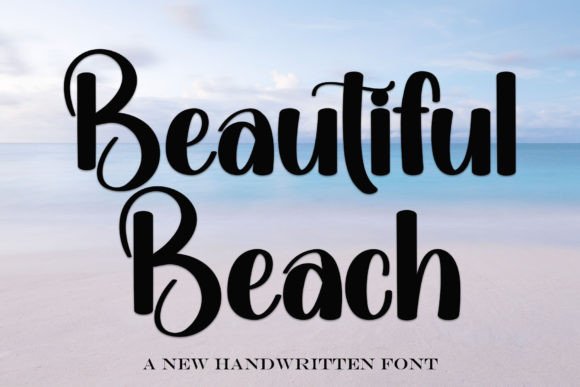
Beautiful Beach for Modern Editorial Design
Beautiful Beach in a Lifestyle Blog Redesign
Beautiful Beach is a stylish handwritten font with a contemporary atmosphere and impeccable form, inspired by a timeless classic calligraphy. When I sat down to redesign the header of my lifestyle blog, I knew I needed something that felt personal yet professional. Beautiful Beach fit perfectly—its balanced and varied strokes brought warmth and elegance to the layout, transforming a simple title into a visual invitation.
I used Beautiful Beach for the main blog title, pairing it with a clean sans serif font for the subtitle. The contrast created a sense of rhythm that guided the reader’s eye smoothly from the headline to the supporting text. It wasn’t just about aesthetics; the font’s readability on both screen and print made it ideal for a publication that values both digital and physical formats.
Beautiful Beach for an Ebook Cover and Chapter Headings
Beautiful Beach is a display font that works beautifully when given space to breathe. For a recent recipe ebook I was designing, I chose this font for the cover title and each chapter heading. Its handwritten feel gave the project a cozy, approachable tone that matched the content inside—each page felt like a hand-written note from a friend.
The font’s varied stroke widths added visual interest without overwhelming the reader. I experimented with spacing and line height to ensure that even longer titles remained legible. This attention to detail helped maintain a consistent mood throughout the book, reinforcing the brand identity and making the content more engaging.
Beautiful Beach in a Wedding Guide Layout
Beautiful Beach is a stylish handwritten font with a contemporary atmosphere and impeccable form, inspired by a timeless classic calligraphy. When working on a wedding guide, I wanted a font that could evoke romance and sophistication. Beautiful Beach delivered exactly that. Its elegant curves and balanced structure were perfect for section headings, pull quotes, and decorative accents.
I paired it with a subtle serif font for body copy, ensuring that the design didn’t become too busy. The result was a layout that felt both modern and timeless, aligning with the theme of the publication. Readers commented on how the typography made the guide feel more personal and heartfelt—an effect I hadn’t anticipated but was delighted to achieve.
Beautiful Beach for Newsletter Headers and Pull Quotes
Beautiful Beach is a display font that shines in editorial layouts where visual hierarchy matters. In a recent newsletter redesign, I used it for the header and pull quotes. Its unique character added a touch of personality without distracting from the message. The font’s variation in stroke weight allowed for dynamic emphasis, making key points stand out naturally.
I found that using Beautiful Beach sparingly was key. Too much of it could create visual clutter, especially in dense content areas. But when used strategically—for headers, quotes, or callouts—it elevated the overall design and made the newsletter feel more intentional and polished.
Beautiful Beach in a Coaching Workbook and Printable Planner
Beautiful Beach is a stylish handwritten font with a contemporary atmosphere and impeccable form, inspired by a timeless classic calligraphy. When designing a coaching workbook, I wanted a font that would help readers feel motivated and engaged. Beautiful Beach provided the right balance of professionalism and warmth, making it ideal for section titles, worksheets, and motivational quotes.
I also incorporated it into a printable planner template. The font’s readability on print materials was impressive, and its clean lines ensured that the content remained easy to follow. The font’s versatility allowed me to use it in both decorative and functional roles, adding depth to the design without compromising usability.
Beautiful Beach for Digital Magazine Covers and Feature Pages
Beautiful Beach is a display font that feels at home in editorial design. When creating a digital magazine layout, I used it for the cover title and feature pages. Its contemporary atmosphere gave the publication a fresh, modern look while still maintaining a sense of tradition through its calligraphic roots.
The font’s ability to enhance the visual appeal of a publication without sacrificing readability was a major plus. I experimented with different weights and styles to find the right balance between elegance and clarity. The final result was a magazine that felt visually cohesive and professionally designed.
Beautiful Beach in Branding and Content Consistency
Beautiful Beach is a stylish handwritten font with a contemporary atmosphere and impeccable form, inspired by a timeless classic calligraphy. When building a brand identity, consistency is key, and this font helped reinforce that. Whether used for logos, social media graphics, or packaging design, it brought a unified look across all platforms.
Beautiful Beach is more than just a font—it’s a thoughtful choice that can elevate your editorial work. Whether you're designing a blog, ebook, newsletter, or printable guide, this font offers a unique blend of style and functionality that makes it worth considering for your next project.